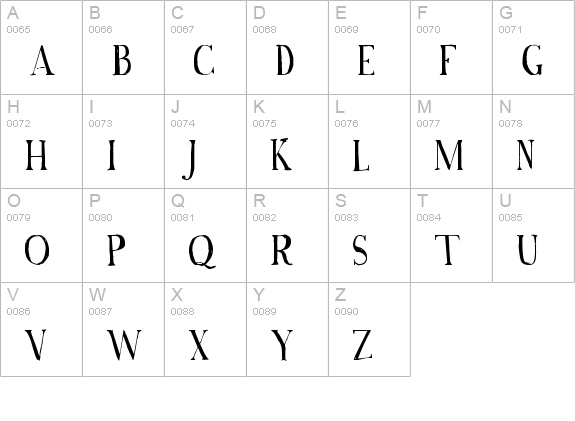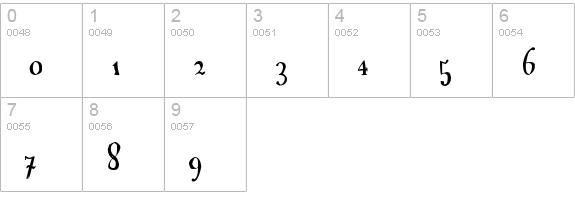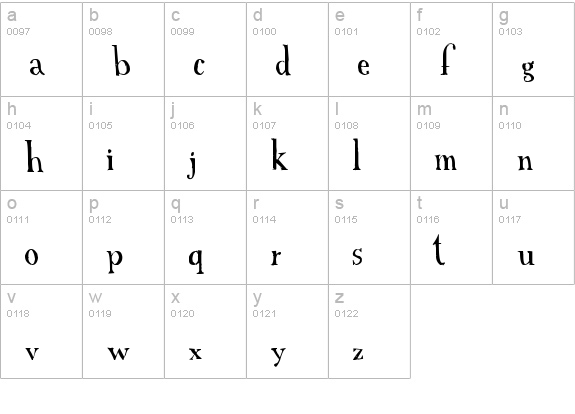
A Font with Serifs Font Details
Introducing the exquisite A Font with Serifs font, a true masterpiece that seamlessly marries elegance and functionality. This remarkable typeface exudes a timeless charm, making it the perfect choice for any project that demands sophistication and professionalism. With its meticulously crafted serifs, this font effortlessly captures attention and adds a touch of refinement to any design. The serifs, those elegant little strokes that extend from the ends of the letterforms, lend a sense of tradition and authority to the text, while still maintaining a modern appeal. But what truly sets A Font with Serifs apart is its versatility. Whether you're designing a logo, creating a stunning website, or designing a print layout, this font will effortlessly adapt to any medium or purpose. Its clean and legible letterforms ensure crystal-clear readability, even at small sizes or in challenging printing conditions. And the best part? A Font with Serifs is completely free! Yes, you read that right. This exceptional font is freely available to download at FontsMarket.com, a reliable and trusted source for high-quality fonts. Now, you can elevate your designs without breaking the bank. Download A Font with Serifs today and unlock a world of endless design possibilities. Let this remarkable typeface transform your projects into captivating works of art. Whether you're a professional graphic designer or a passionate hobbyist, this font will become your go-to choice for adding a touch of elegance and professionalism to your creations. Don't miss out on this incredible opportunity to enhance your design arsenal. Download A Font with Serifs now and experience the beauty and versatility of this extraordinary font. Remember, it's free and readily available at FontsMarket.com.